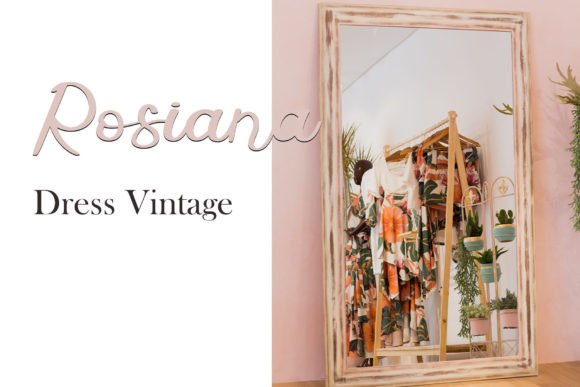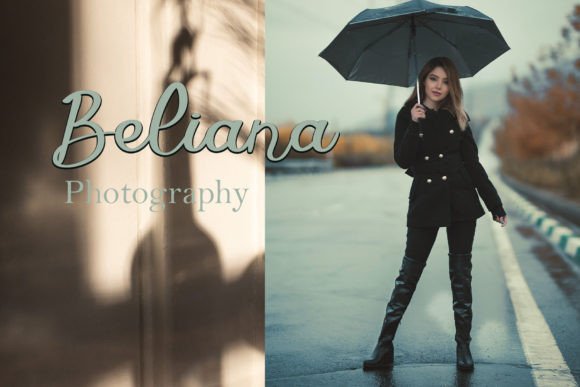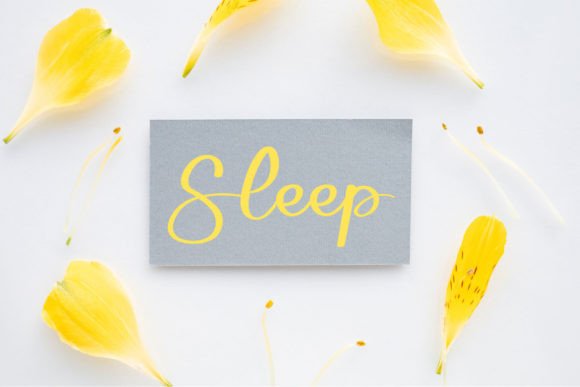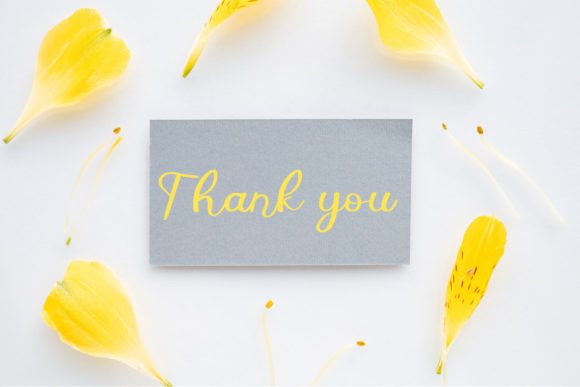
Discover the Elegance of Hello Bella Font: Elevate Your Designs with its Simple yet Stunning Style
In the world of typography, few fonts manage to capture the essence of elegance and simplicity as effectively as the Hello Bella font. This thin-lettered and simple script font has been making waves in the design community, and for good reason. Its ravishing style is not only visually appealing but also incredibly versatile, making it an ideal choice for a wide range of projects, from wedding invitations and stationary art to social media posts and beyond.
The Charm of Hello Bella Font
Hello Bella is more than just a font; it’s a design statement. Its thin letters exude a sense of sophistication and grace, adding a touch of class to any project it’s used in. The simplicity of its design makes it highly legible, ensuring that your message is conveyed clearly and effectively. Whether you’re designing for print or digital platforms, Hello Bella’s clarity and elegance make it an excellent choice.
Applications of Hello Bella Font
The versatility of Hello Bella font is one of its most appealing features. Here are some of the many ways you can use this beautiful font to elevate your designs:
- Wedding Invitations: Create stunning wedding invitations that set the tone for a sophisticated and elegant event. Hello Bella’s graceful letters are perfect for conveying the joy and beauty of a wedding.
- Stationary Art: Add a personal touch to your stationery with Hello Bella. From greeting cards to personal letters, this font brings a level of sophistication that’s hard to match.
- Social Media Posts: Make your social media posts stand out with Hello Bella. Its unique style is sure to catch the eye of your followers and make your content more engaging.
- Branding and Packaging: For businesses looking for a font that conveys elegance and sophistication, Hello Bella is an excellent choice. It can be used in logos, product packaging, and marketing materials to create a cohesive and appealing brand image.
Why Designers and Crafters Love Hello Bella Font
Designers and crafters are always on the lookout for fonts that can help their work stand out. Hello Bella font offers several advantages that make it a favorite among creative professionals:
- Ease of Use: Hello Bella is incredibly easy to use, even for those who are new to design. Its simple and clean lines make it straightforward to incorporate into any project.
- Customization: Despite its simplicity, Hello Bella offers a range of customization options. You can adjust its size, color, and spacing to fit your design needs.
Tips for Using Hello Bella Font Effectively
To make the most of Hello Bella font, consider the following tips:
- Pair it with Other Fonts: Hello Bella pairs well with a variety of fonts. Experiment with different combinations to find the perfect match for your project.
- Play with Colors: While Hello Bella looks great in black and white, don’t be afraid to experiment with colors. Soft pastels, rich jewel tones, and metallic colors can all enhance its beauty.
- Pay Attention to Spacing: The spacing between letters and lines can significantly impact the overall look of your design. Adjust the spacing to create a harmonious and balanced composition.
Hello Bella font is a powerful tool for designers and crafters looking to add a touch of elegance and sophistication to their work. Its simple yet stunning style makes it versatile and easy to use, suitable for a wide range of projects. Whether you’re creating wedding invitations, stationary art, social media posts, or branding materials, Hello Bella is sure to elevate your designs and leave a lasting impression.